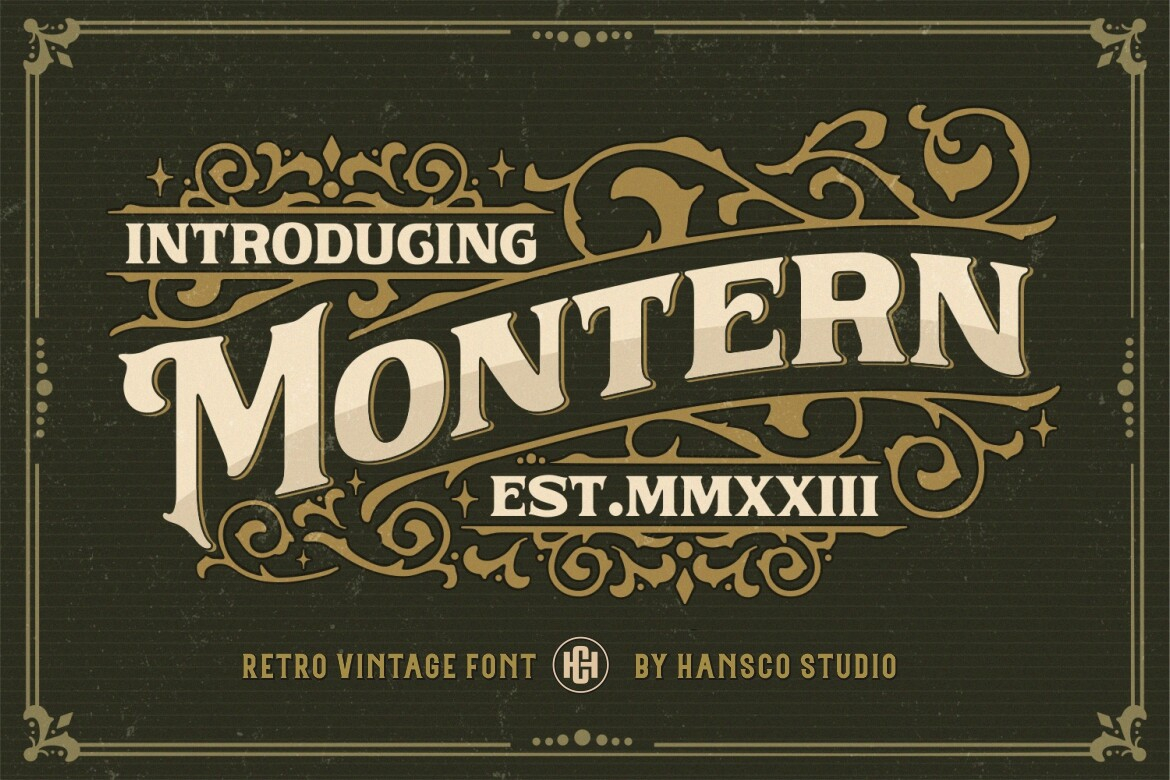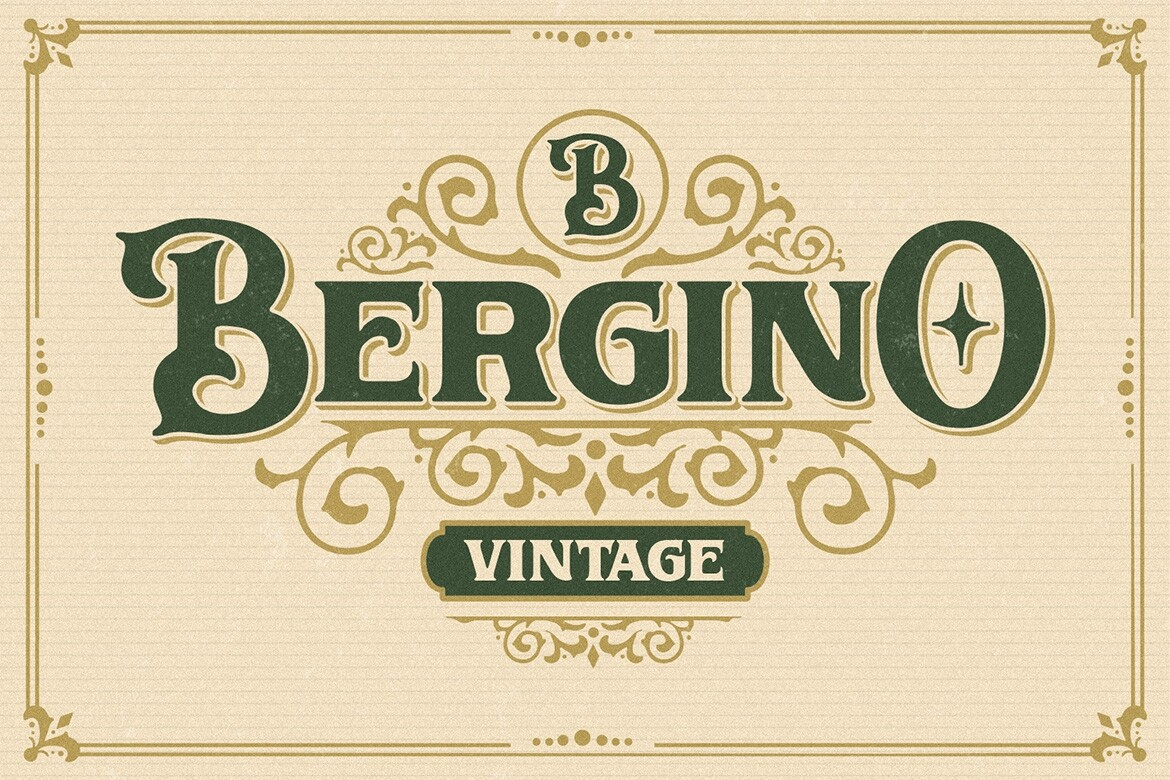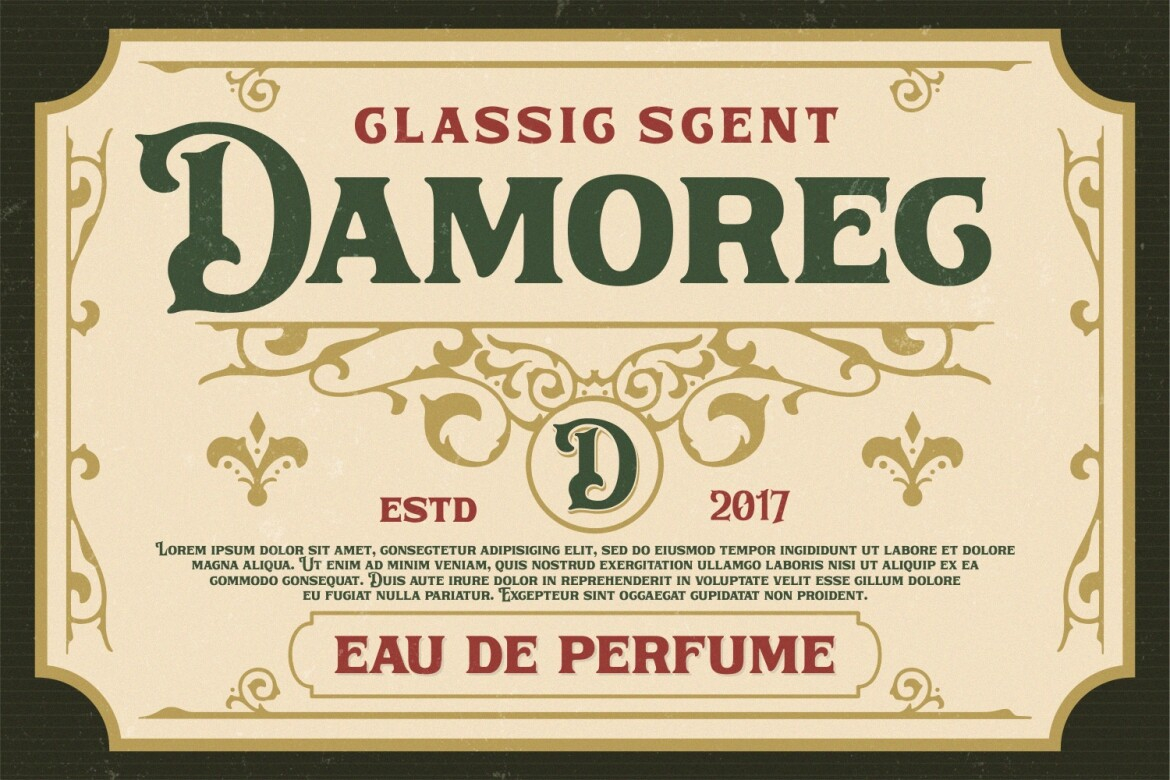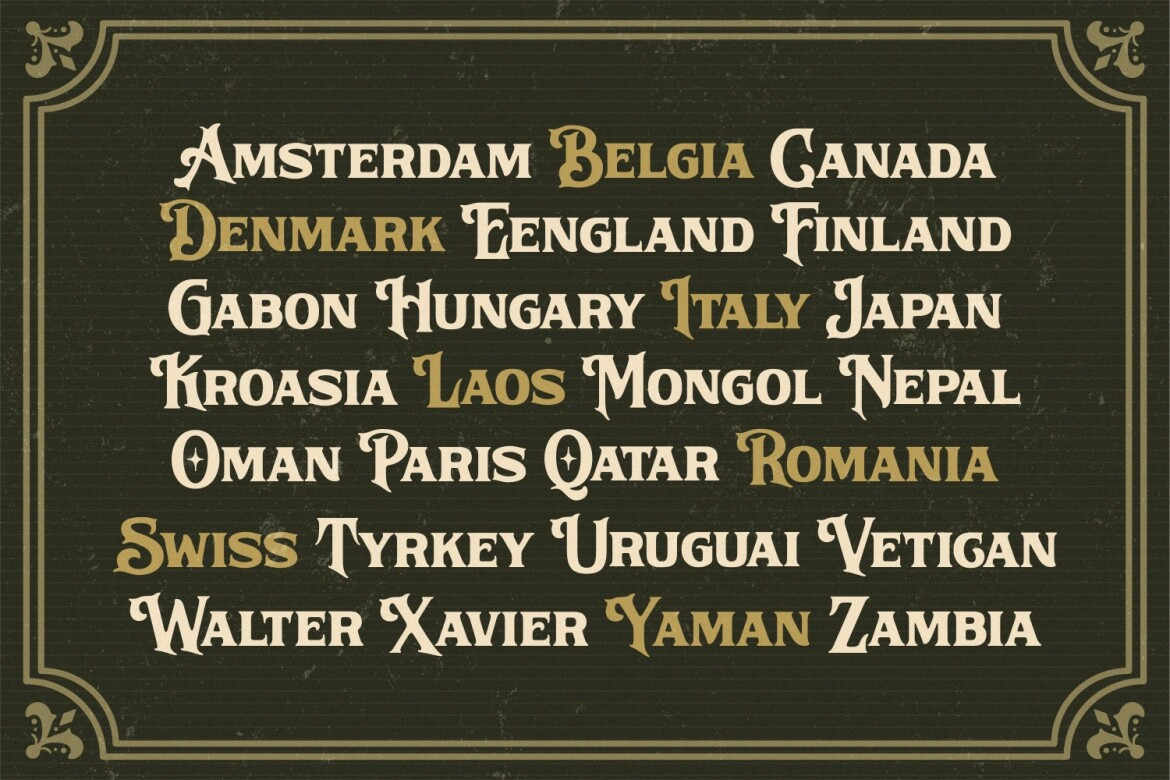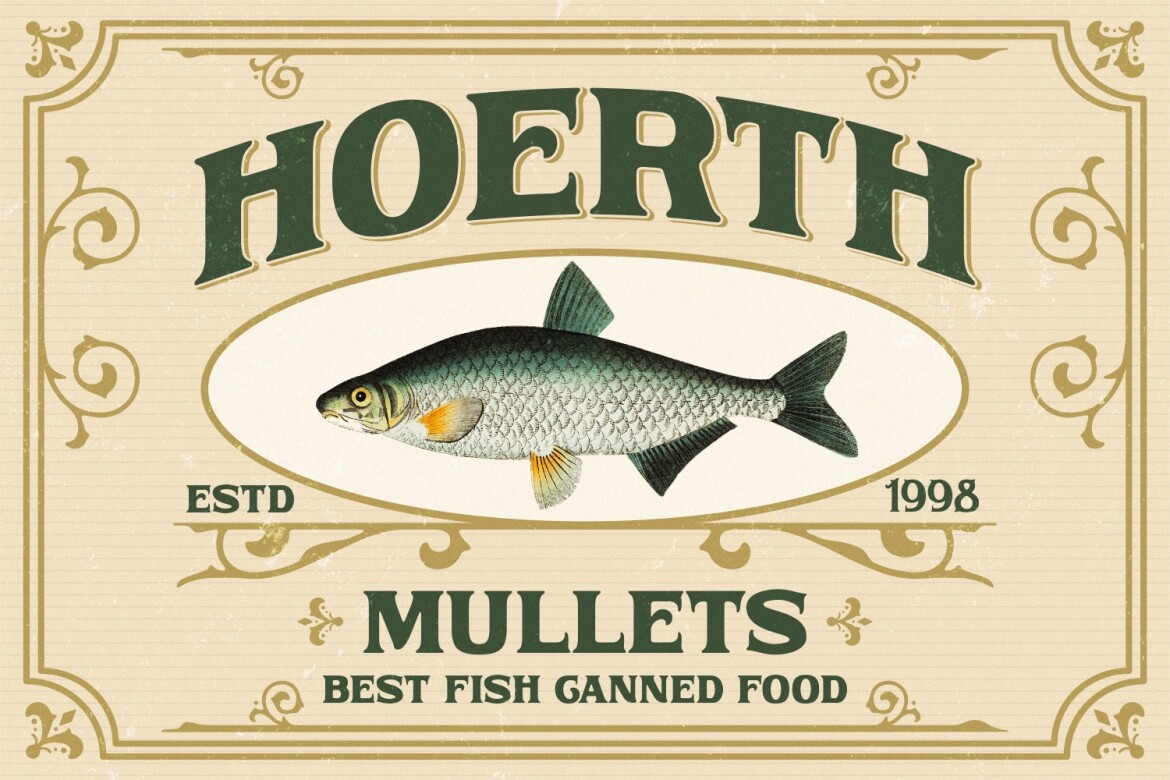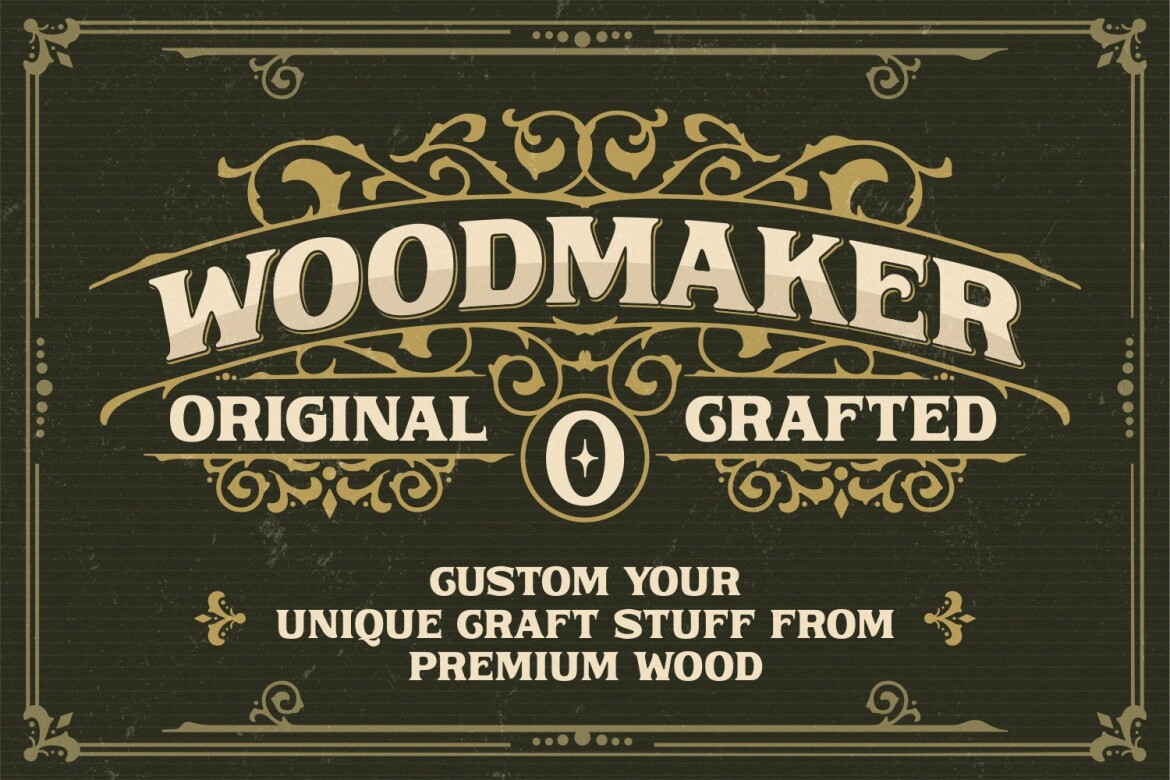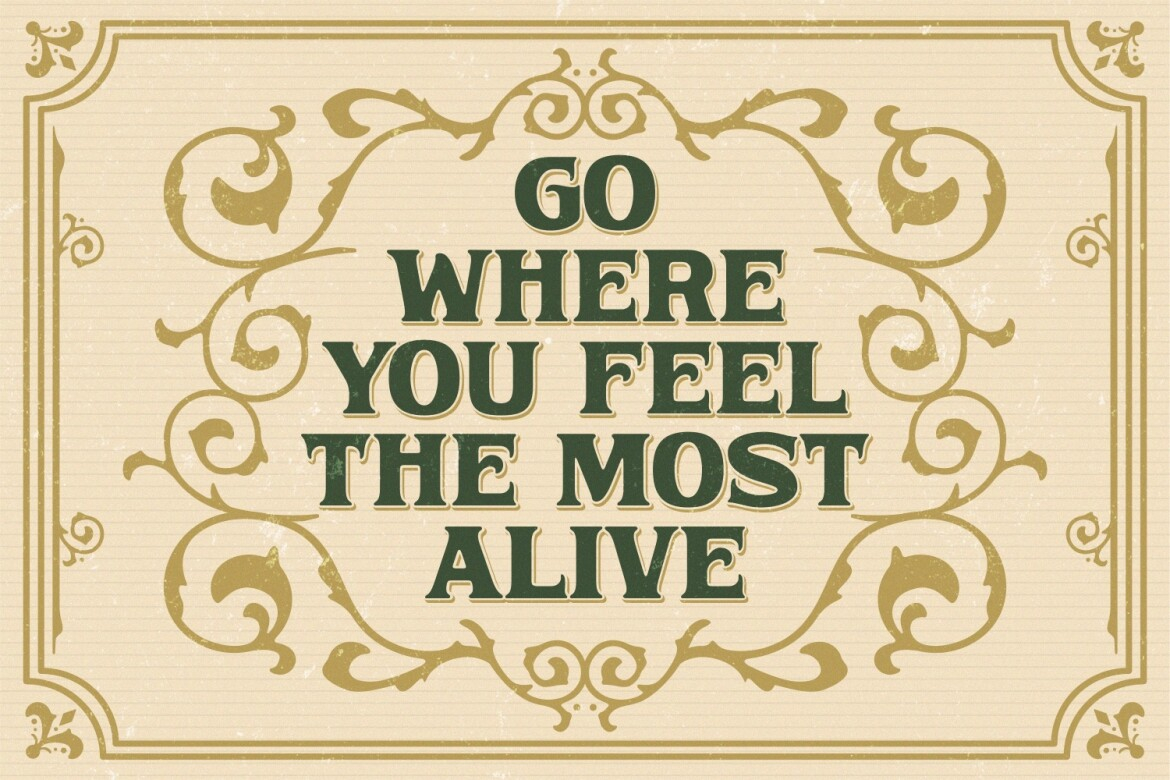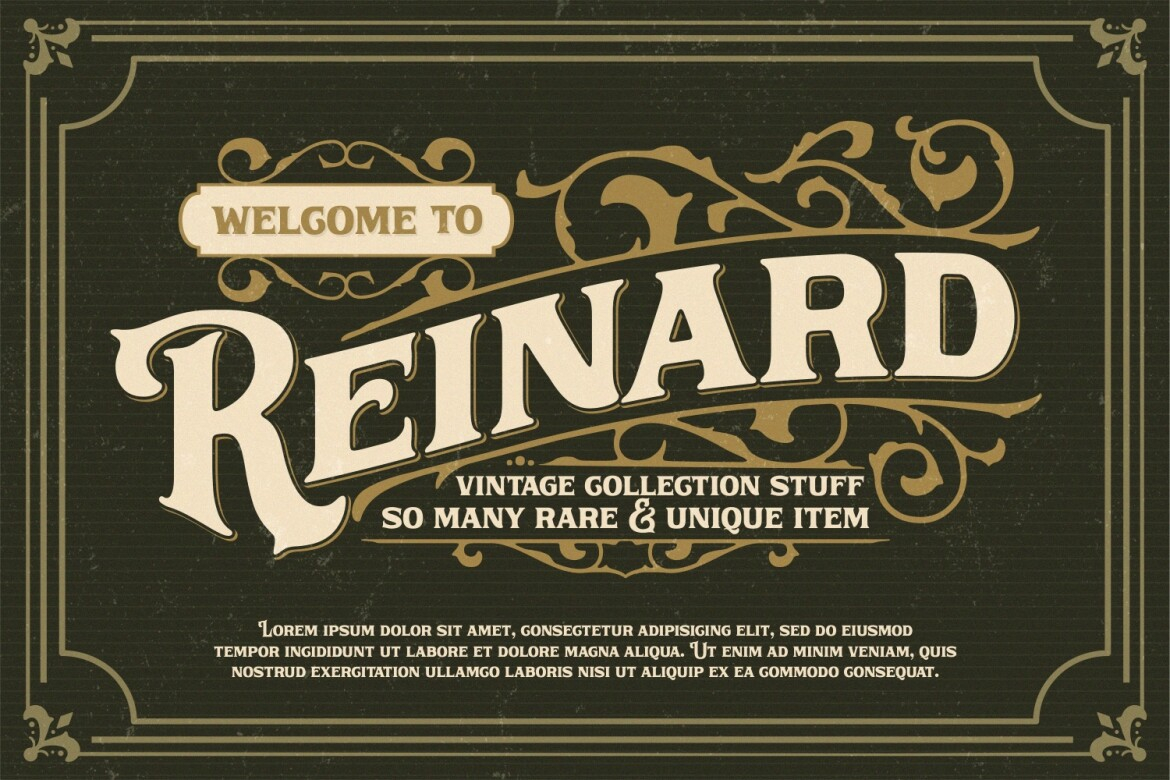
Montern Font
About Montern Font
Montern is a Vintage typeface font, it will add an old-rustic charm to any design project. This collection of font is perfect for everything your project with vintage, retro, wild or organic style. It was made with the intention of being used for product Logo like a Pomade, Coffee, Barber shop or packaging label. It’s great also for branding, logo designs, lettering, logotype, craft, posters and much more.